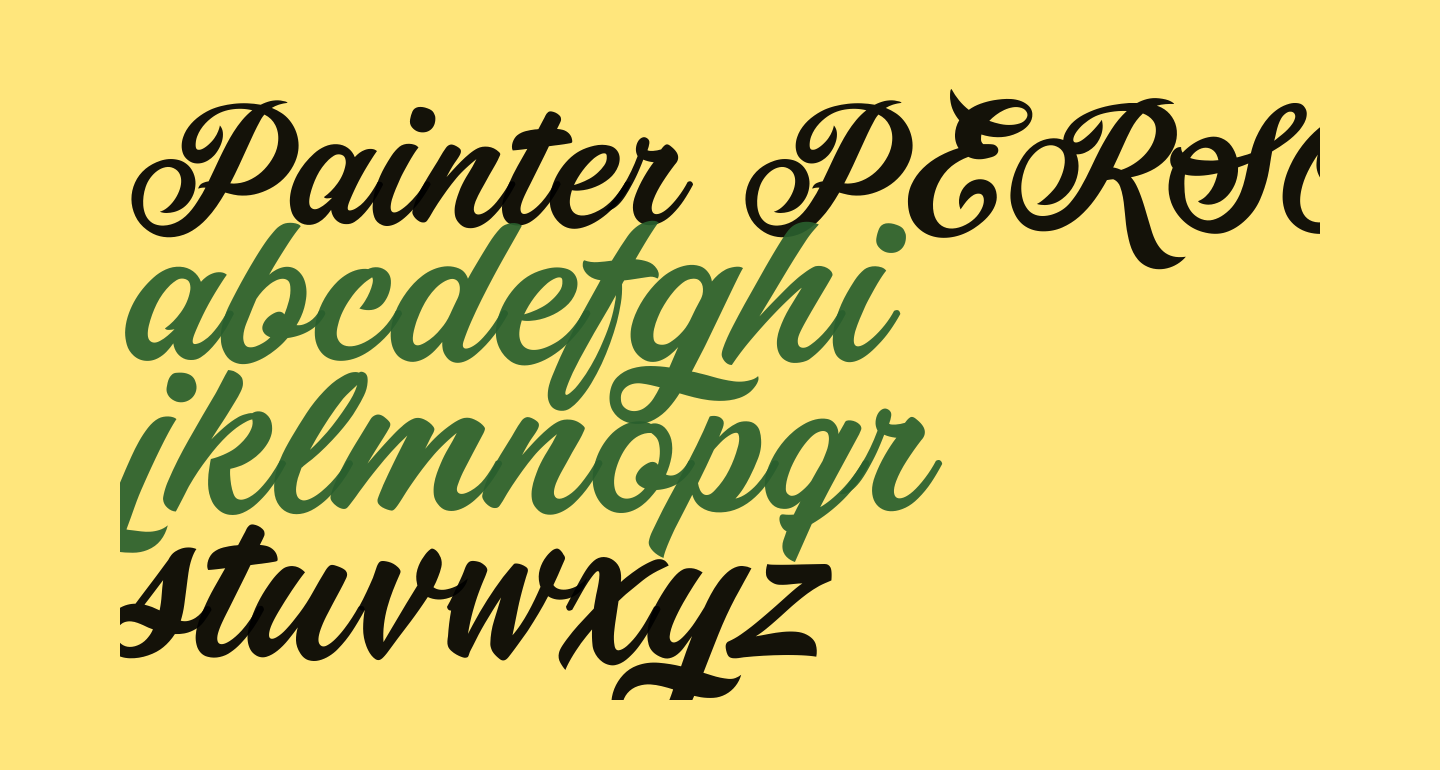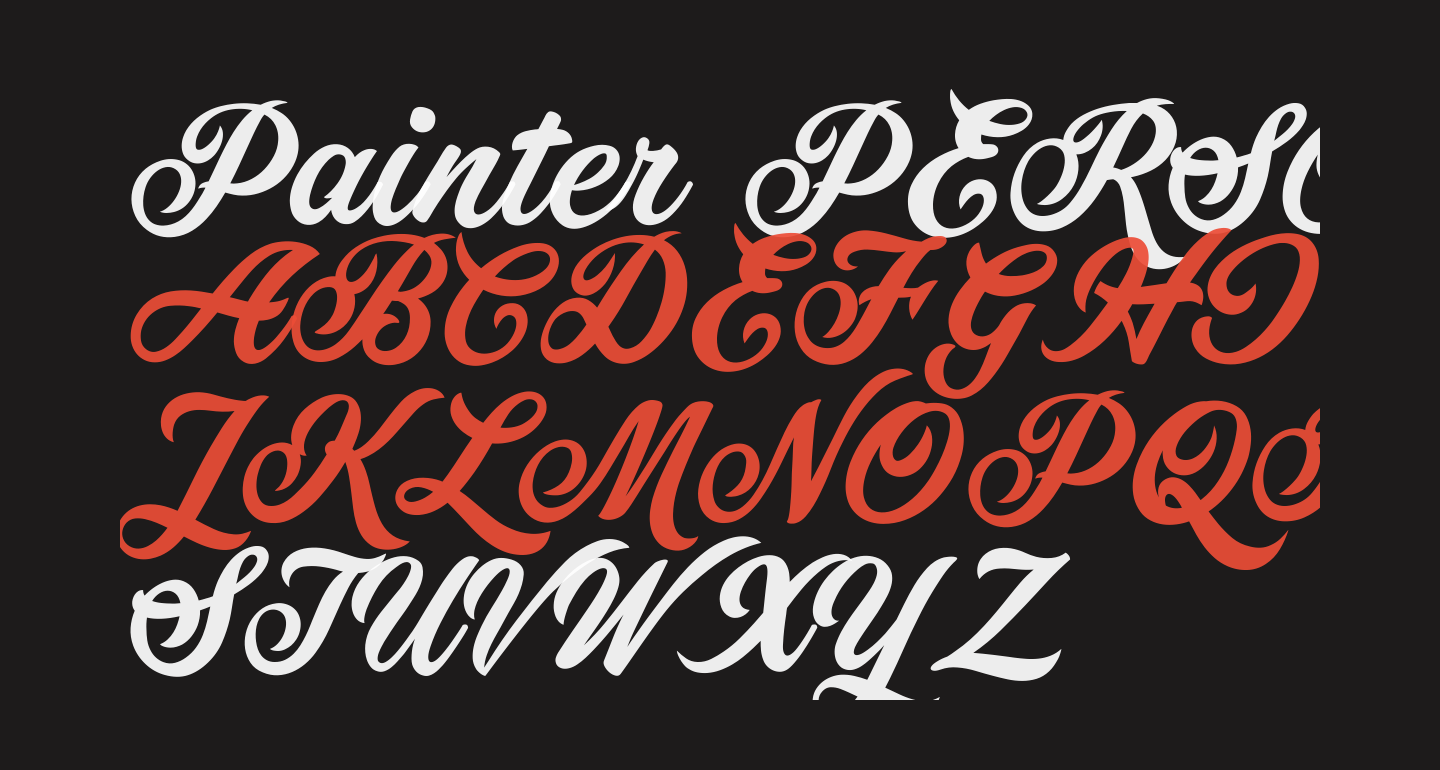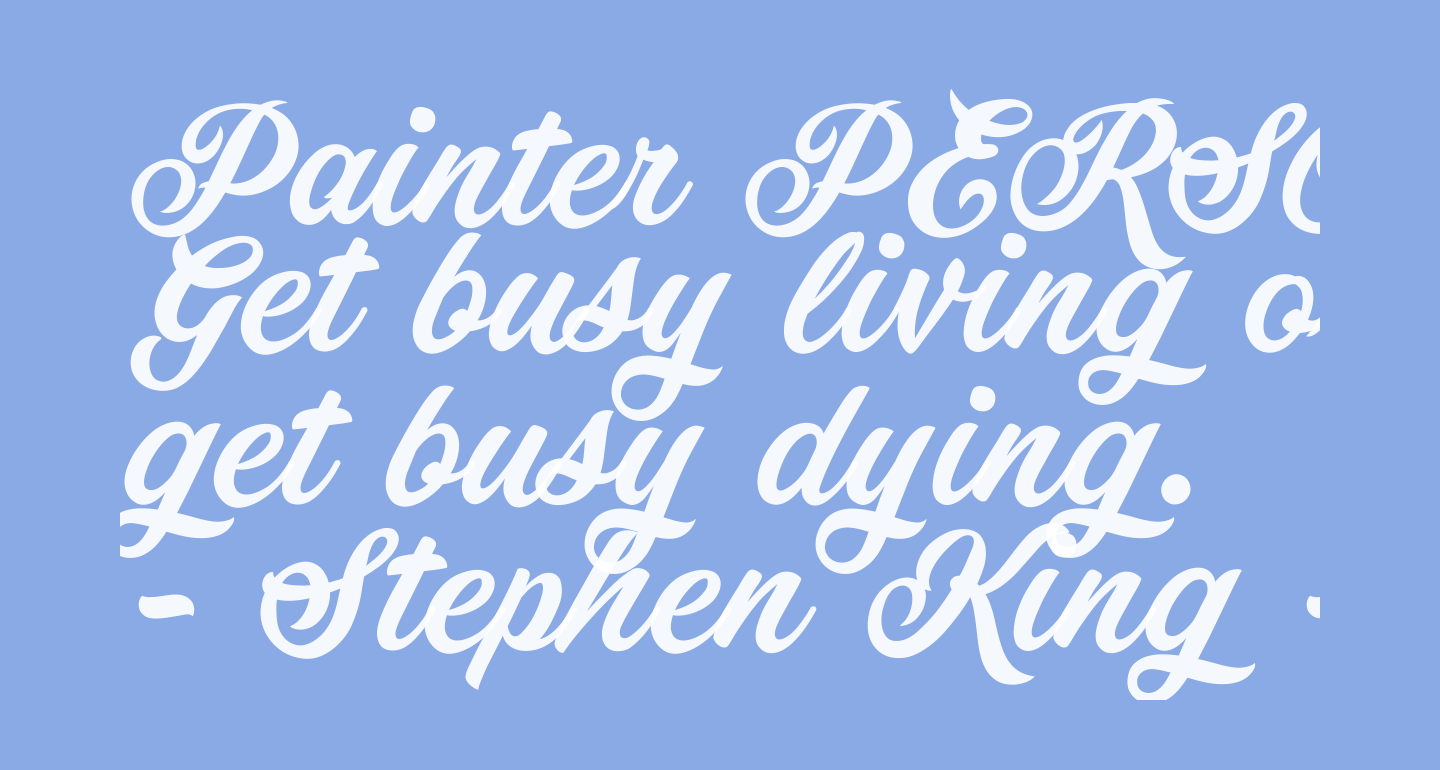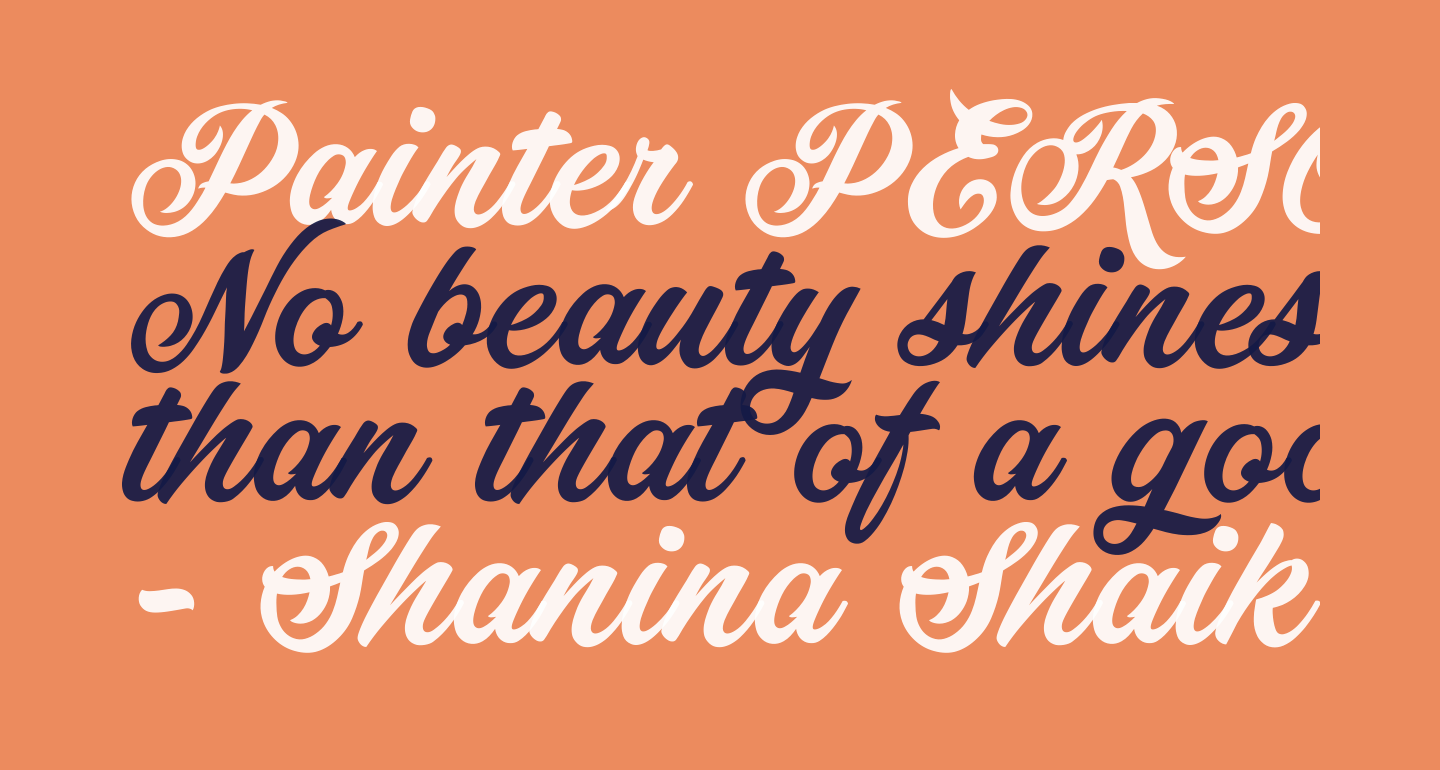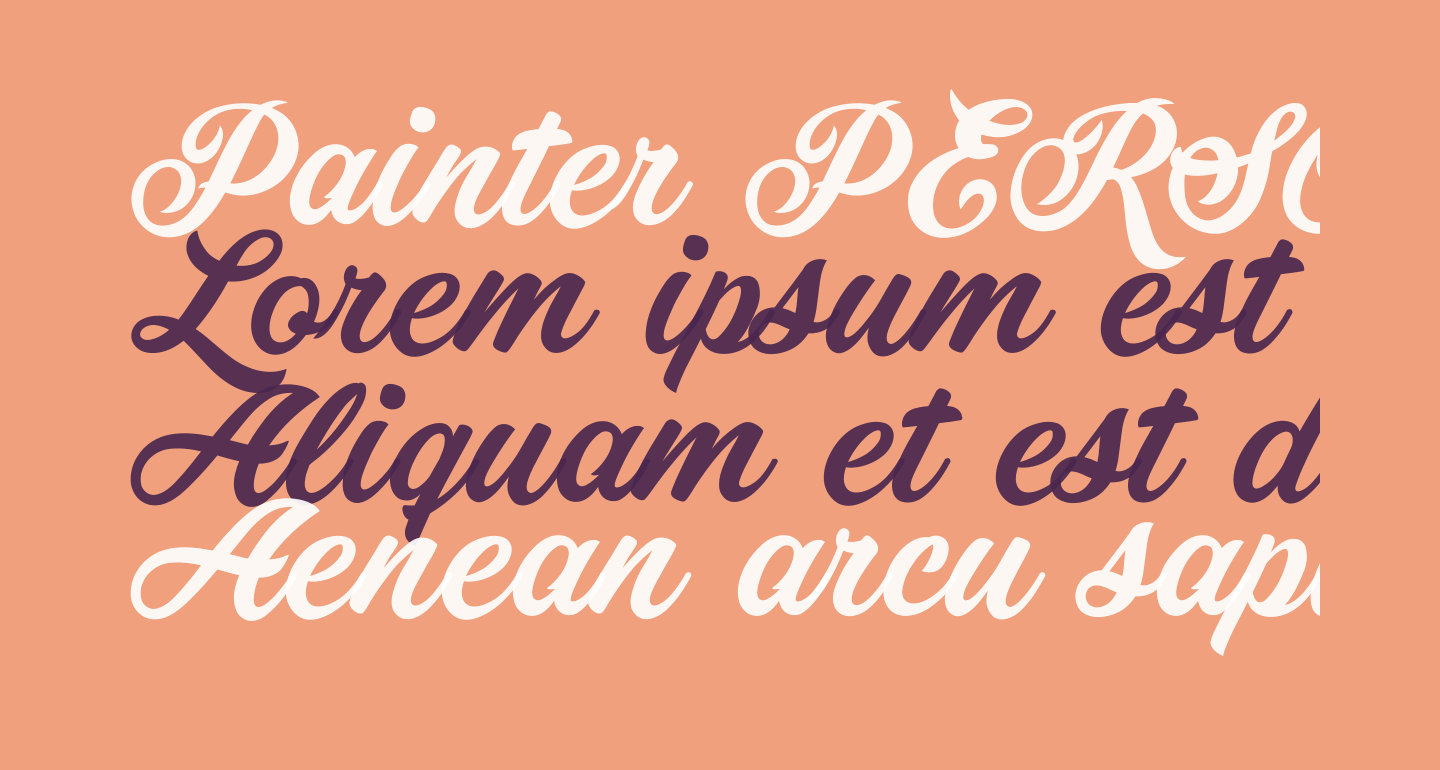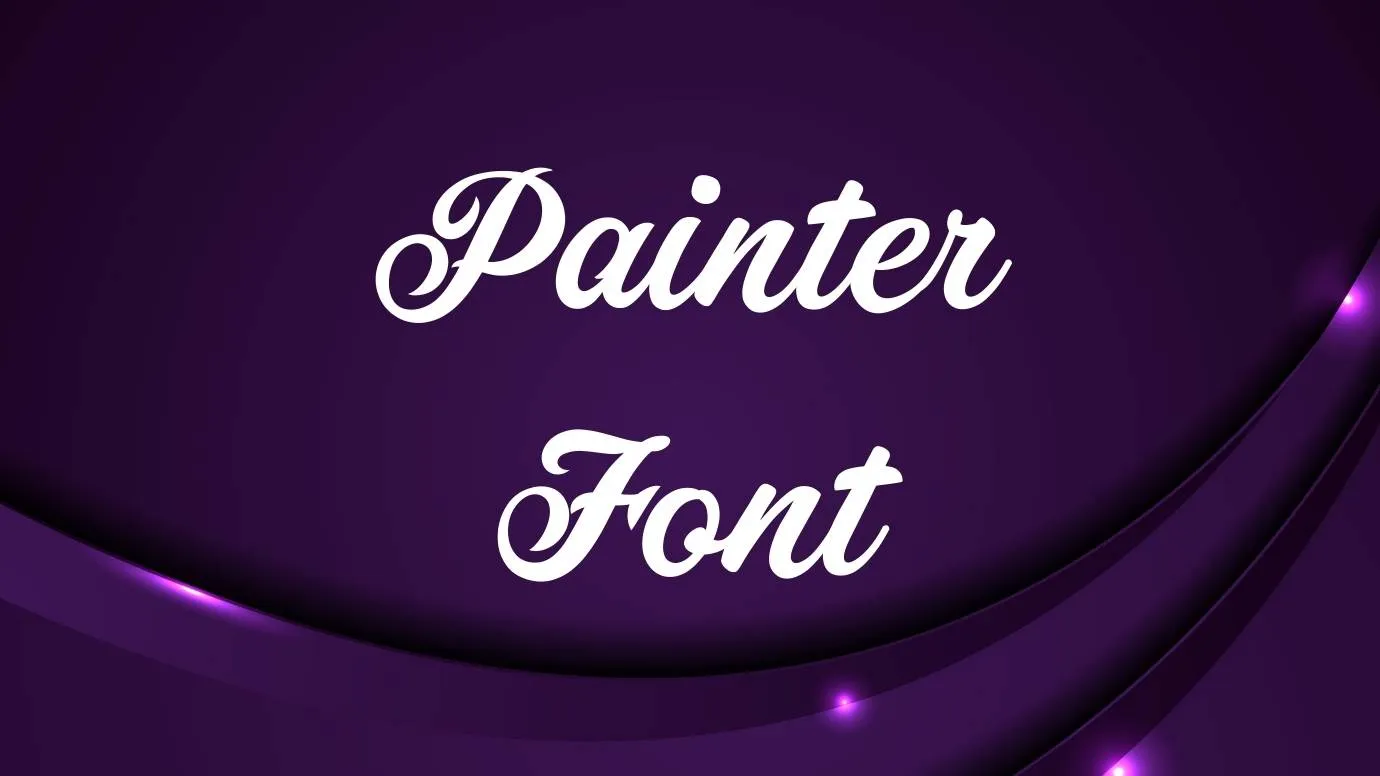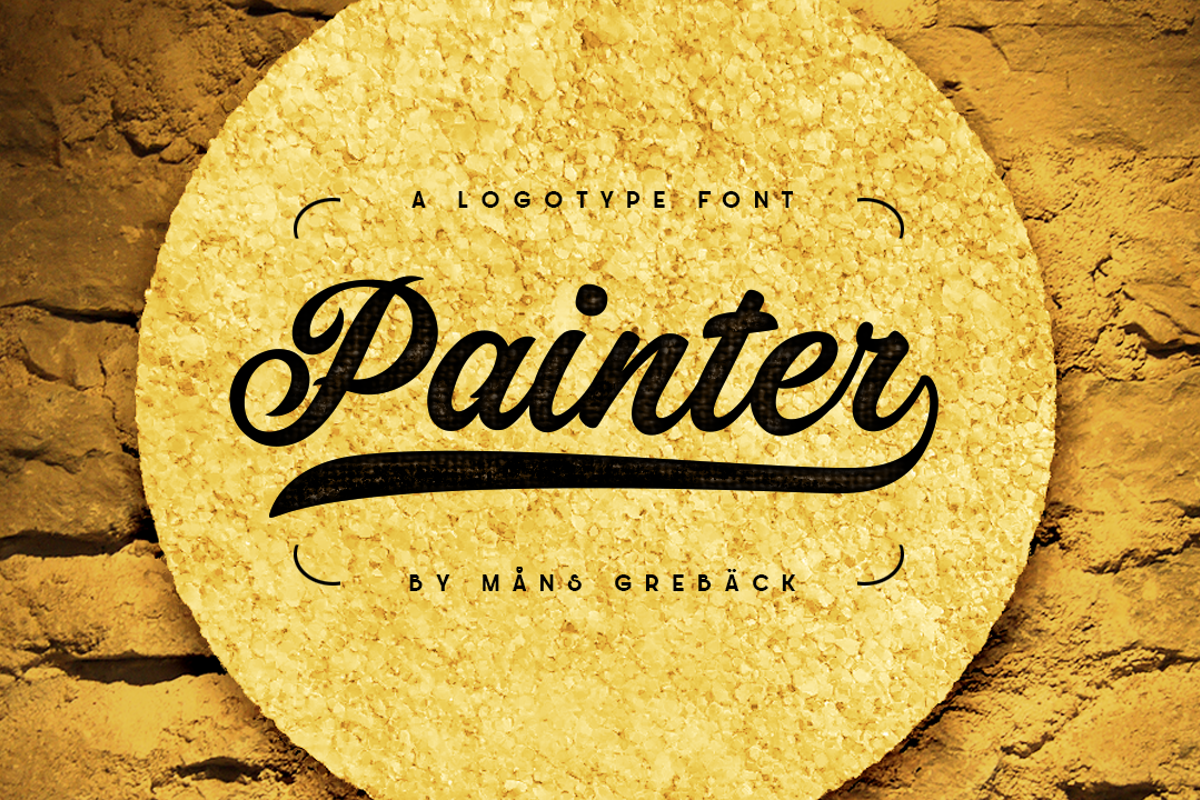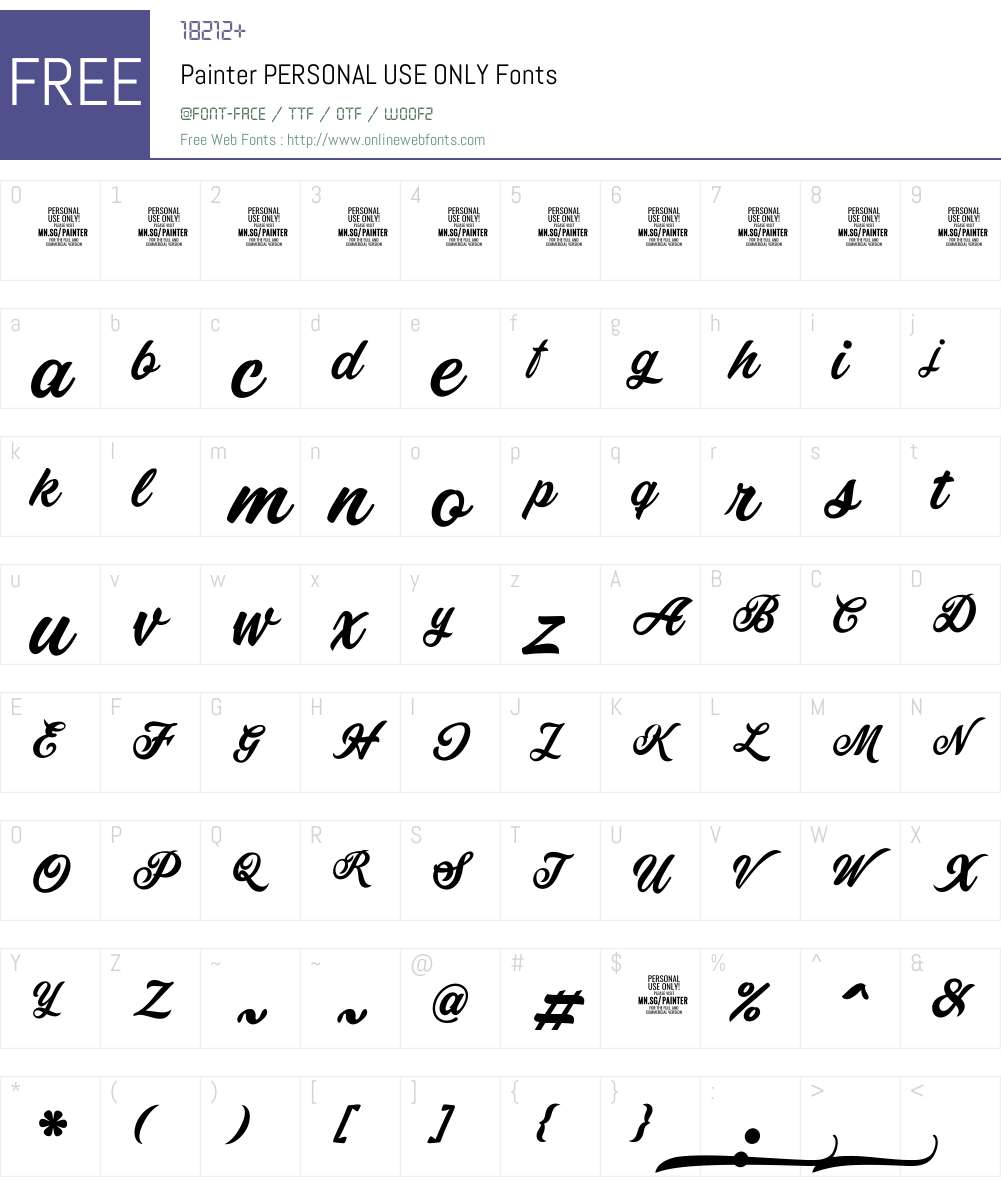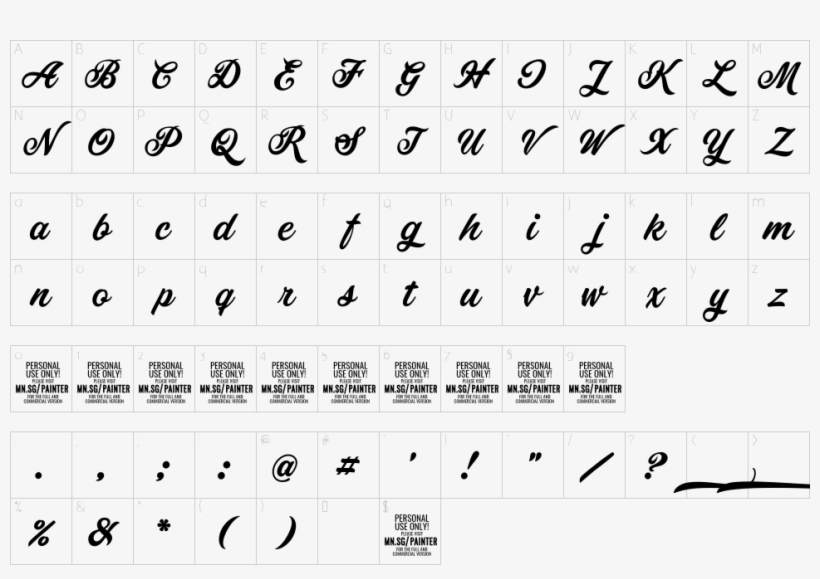
Painter Personal Use Only Font . Painter is a bold script font, with wide and wet brush strokes. To purchase a commercial license, visit: The painter personal use only font contains 391 beautifully designed characters. Use > or < after a word to add a swash effect. About painter personal use only regular font. Painter personal use only font family designed by mâns greb‰ck has a total of 1 different styles. Painter is a bold script font, with wide and wet brush strokes. It is articulate and clean, holds a high quality and comes with many features. Some of them are contextual and stylistic. It is articulate and clean, holds a high quality and comes with. This font is for personal use only! Customize your own preview on ffonts.net to make sure it`s the right one for your. You can download the painter personal use. Painter personal use only font. Painter is a bold script font, with wide and wet brush strokes.
This font is for personal use only! The painter personal use only font contains 391 beautifully designed characters. You can download the painter personal use. Painter personal use only font. Use > or < after a word to add a swash effect. About painter personal use only regular font. Painter personal use only font family designed by mâns greb‰ck has a total of 1 different styles. It is articulate and clean, holds a high quality and comes with. Painter is a bold script font, with wide and wet brush strokes. It is articulate and clean, holds a high quality and comes with many features.
Painter Personal Use Only Font  Painter is a bold script font, with wide and wet brush strokes. Painter is a bold script font, with wide and wet brush strokes. It is articulate and clean, holds a high quality and comes with many features. To purchase a commercial license, visit: It is articulate and clean, holds a high quality and comes with. The painter personal use only font contains 391 beautifully designed characters. Painter is a bold script font, with wide and wet brush strokes. This font is for personal use only! You can download the painter personal use. Customize your own preview on ffonts.net to make sure it`s the right one for your. Some of them are contextual and stylistic. Painter personal use only font. Painter personal use only font family designed by mâns greb‰ck has a total of 1 different styles. Painter is a bold script font, with wide and wet brush strokes. Use > or < after a word to add a swash effect. About painter personal use only regular font.
Painter font Font Tr Painter Personal Use Only Font  It is articulate and clean, holds a high quality and comes with. To purchase a commercial license, visit: Painter is a bold script font, with wide and wet brush strokes. About painter personal use only regular font. Use > or < after a word to add a swash effect. Painter is a bold script font, with wide and wet brush. Painter Personal Use Only Font.
Painter font Font Tr Painter Personal Use Only Font  Customize your own preview on ffonts.net to make sure it`s the right one for your. The painter personal use only font contains 391 beautifully designed characters. You can download the painter personal use. Painter is a bold script font, with wide and wet brush strokes. Painter personal use only font family designed by mâns greb‰ck has a total of 1. Painter Personal Use Only Font.
Painter Font Jammycreamer FontSpace Painter Personal Use Only Font  Customize your own preview on ffonts.net to make sure it`s the right one for your. The painter personal use only font contains 391 beautifully designed characters. Painter is a bold script font, with wide and wet brush strokes. Painter personal use only font family designed by mâns greb‰ck has a total of 1 different styles. Painter is a bold script. Painter Personal Use Only Font.
Painter PERSONAL USE ONLY Font Download Free for Desktop & font Painter Personal Use Only Font  Painter is a bold script font, with wide and wet brush strokes. Painter is a bold script font, with wide and wet brush strokes. Painter personal use only font family designed by mâns greb‰ck has a total of 1 different styles. Use > or < after a word to add a swash effect. About painter personal use only regular font.. Painter Personal Use Only Font.
Painter font Font Tr Painter Personal Use Only Font  The painter personal use only font contains 391 beautifully designed characters. Use > or < after a word to add a swash effect. Painter personal use only font. Painter is a bold script font, with wide and wet brush strokes. To purchase a commercial license, visit: Painter is a bold script font, with wide and wet brush strokes. Customize your. Painter Personal Use Only Font.
Painter PERSONAL USE ONLY free Font What Font Is Painter Personal Use Only Font  Painter is a bold script font, with wide and wet brush strokes. It is articulate and clean, holds a high quality and comes with. Customize your own preview on ffonts.net to make sure it`s the right one for your. Painter personal use only font. Some of them are contextual and stylistic. The painter personal use only font contains 391 beautifully. Painter Personal Use Only Font.
Painter free font Painter Personal Use Only Font  Customize your own preview on ffonts.net to make sure it`s the right one for your. It is articulate and clean, holds a high quality and comes with many features. Painter personal use only font family designed by mâns greb‰ck has a total of 1 different styles. The painter personal use only font contains 391 beautifully designed characters. This font is. Painter Personal Use Only Font.
Painter Font Download Free for Desktop & font Painter Personal Use Only Font  This font is for personal use only! To purchase a commercial license, visit: You can download the painter personal use. It is articulate and clean, holds a high quality and comes with. It is articulate and clean, holds a high quality and comes with many features. Customize your own preview on ffonts.net to make sure it`s the right one for. Painter Personal Use Only Font.
Painter PERSONAL USE ONLY font Painter Personal Use Only Font  Painter personal use only font. To purchase a commercial license, visit: Painter is a bold script font, with wide and wet brush strokes. It is articulate and clean, holds a high quality and comes with many features. Some of them are contextual and stylistic. Painter is a bold script font, with wide and wet brush strokes. It is articulate and. Painter Personal Use Only Font.